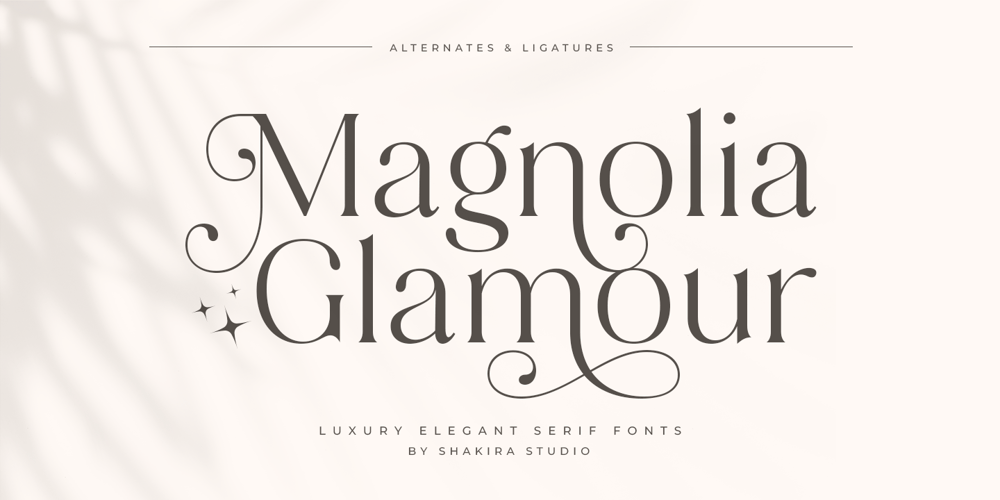
Magnolia Glamour Font Family was designed by Idhham Cholid Rikzano Yahya and published by Shakira Studio. Magnolia Glamour contains 2 styles and family package options. Introducing Magnolia Glamour – The Epitome of Elegant Luxury in Typography!Magnolia Glamour is more than just a font; it’s a statement of sophistication and opulence. Perfectly embodying the essence of #ElegantLuxury and #TypographyTrends, Magnolia Glamour is crafted to elevate your most prestigious design projects.With its luxurious characters, stylish alternates, and exquisite ligatures, Magnolia Glamour brings a touch of class to any creation. Ideal for high-end branding, wedding invitations, or premium packaging, this font ensures your work stands out with elegance and grace.Join the trend towards sophisticated and luxurious typography with Magnolia Glamour. Enhance your designs with its unparalleled beauty and timeless charm! #MagnoliaGlamourFont #ElegantTypography #DesignExcellenceHere’s what you get: Regular & Italic All Multilingual symbol Opentype features ( ligature, alternate ) Accessible in the Adobe Illustrator, Adobe Photoshop, Adobe InDesign, even work on Microsoft Word. PUA Encoded Characters – Fully accessible without additional design software. Multilingual character supports : (Afrikaans, Albanian, Catalan, Croatian, Czech, Danish, Dutch, English, Estonian, Finnish, French, German, Hungarian, Icelandic, Italian, Lithuanian, Maltese, Norwegian, Polish, Portuguese, Slovenian, Spanish, Swedish, Turkish, Zulu)Thank you!